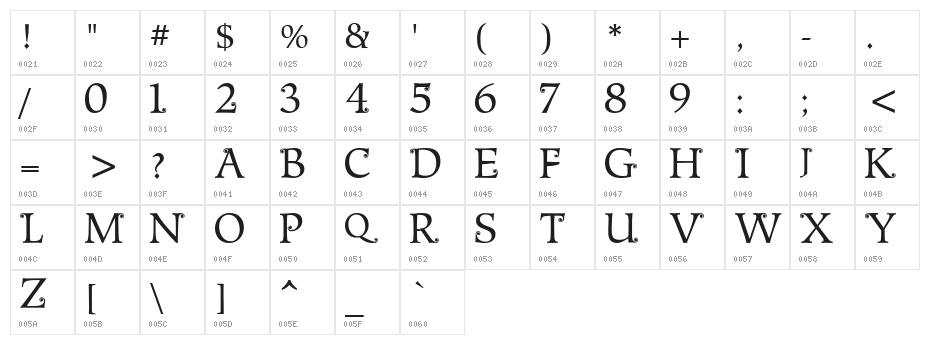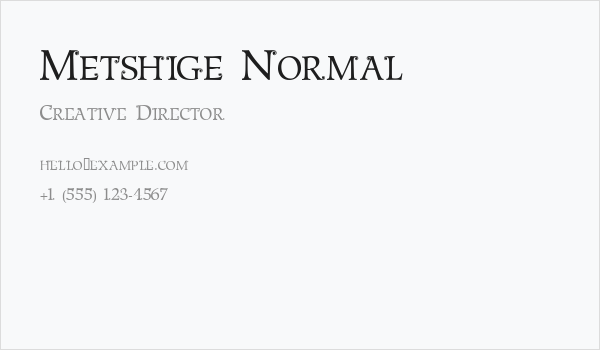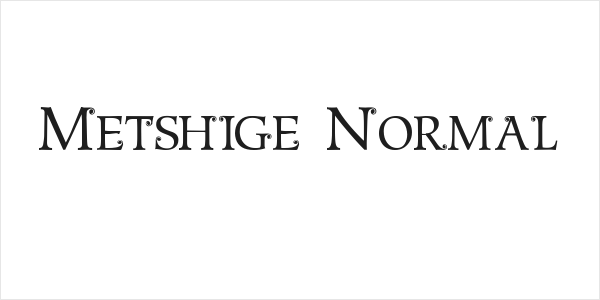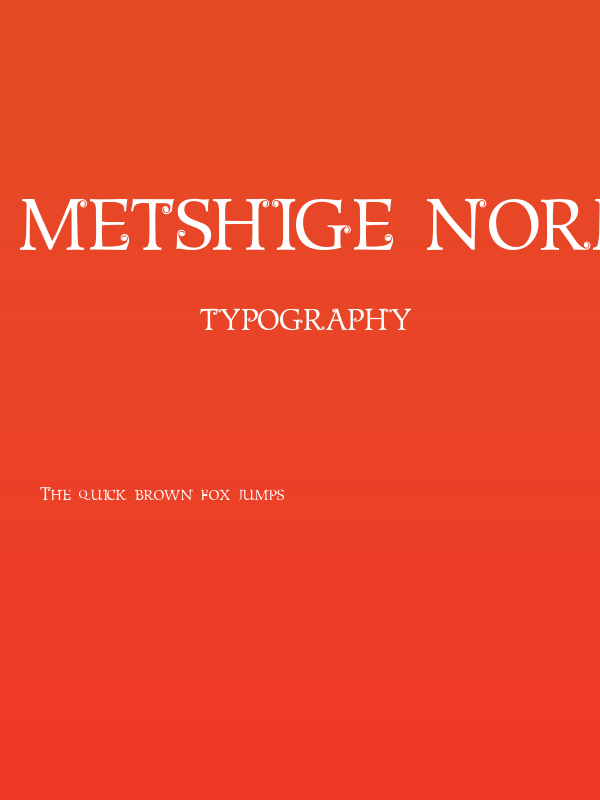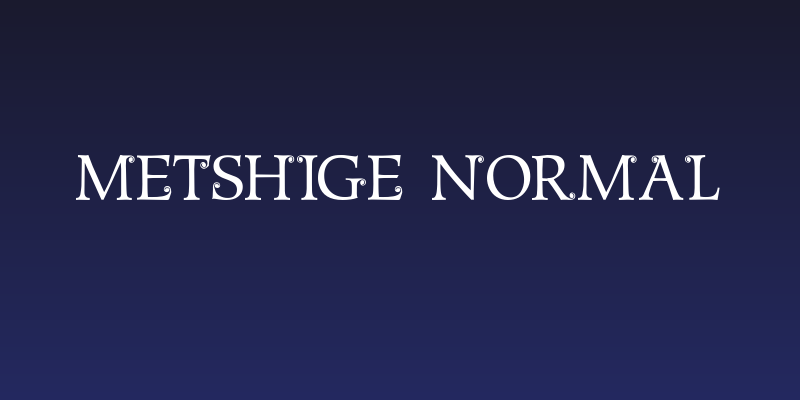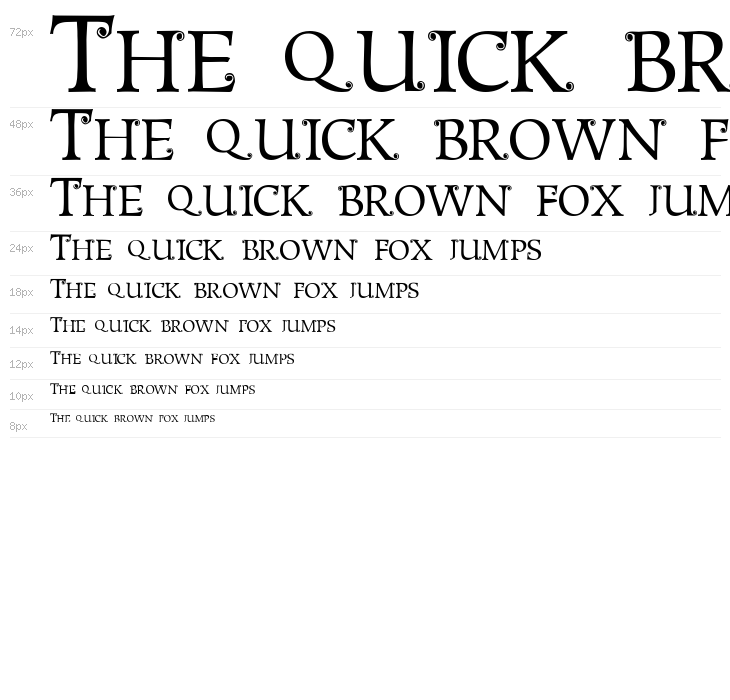
Metshige Normal Font
Metshige Normal Description
This font features a unique and decorative style with elegant swirls and curls at the ends of the strokes, giving it a whimsical and artistic appearance. The characters are bold and have a strong presence, making them suitable for eye-catching designs. The uppercase and lowercase letters maintain a consistent style, with the decorative elements adding a touch of sophistication. The numerals and special characters are equally ornate, ensuring a cohesive look across all text elements. This font is perfect for projects that require a creative and distinctive flair.
Proposed ProjectsIdeal for invitations, posters, branding, and any project needing a creative and distinctive touch.